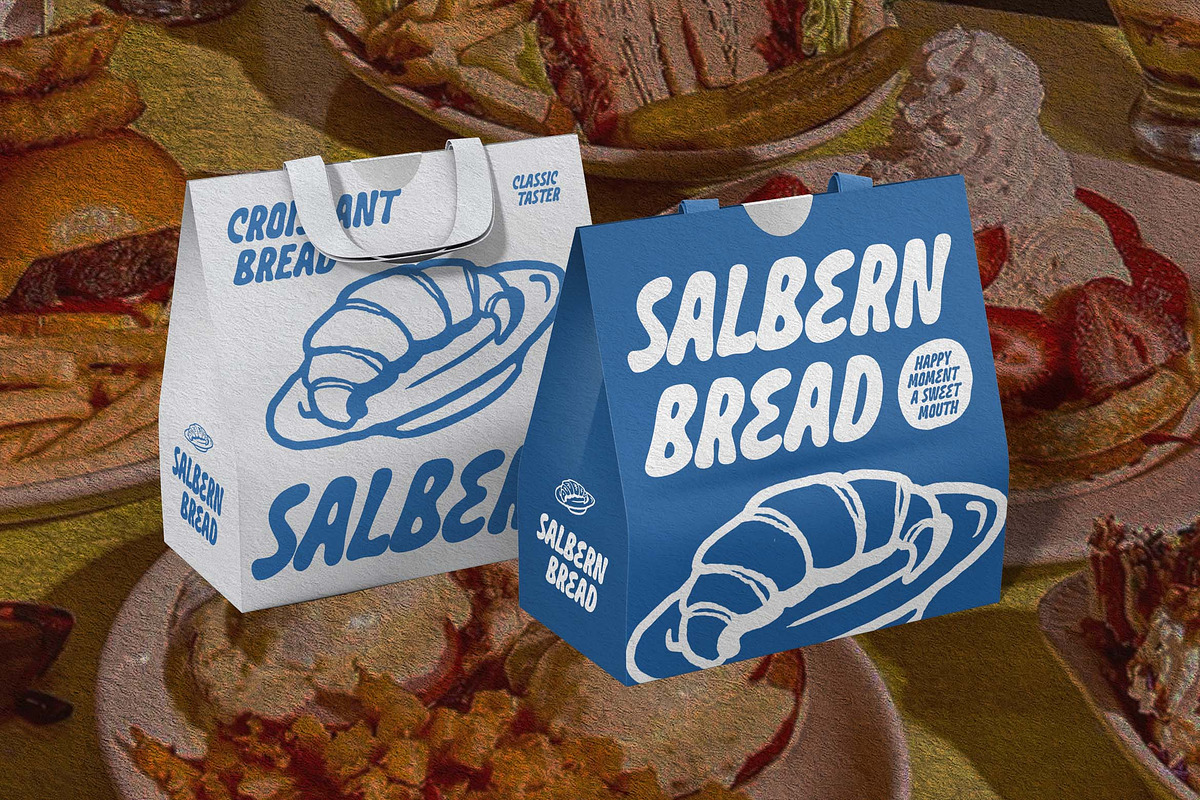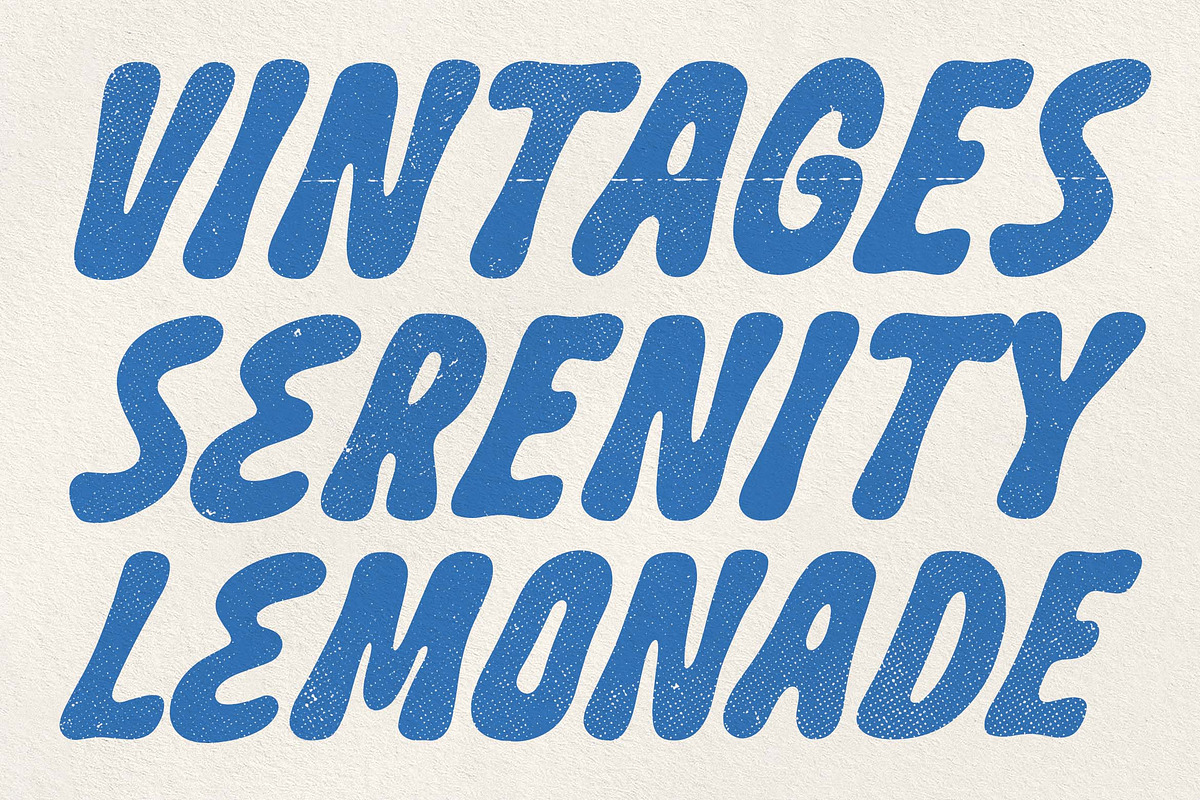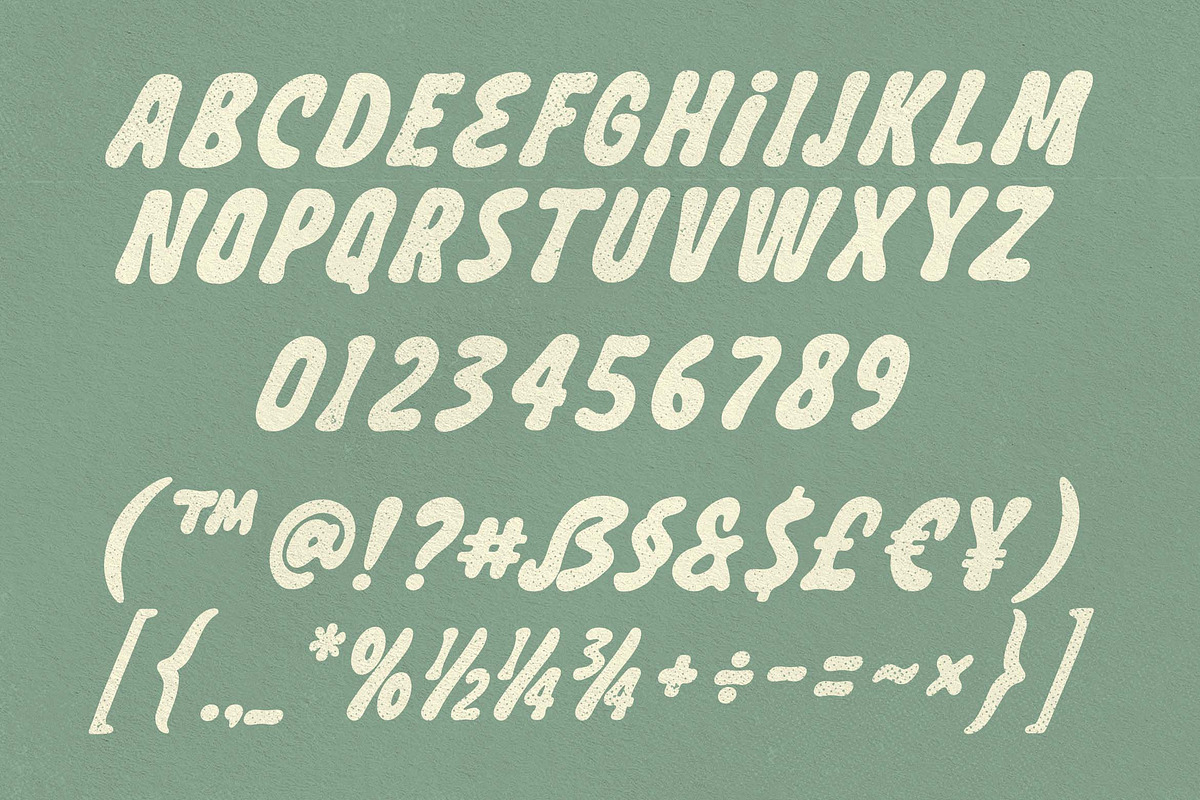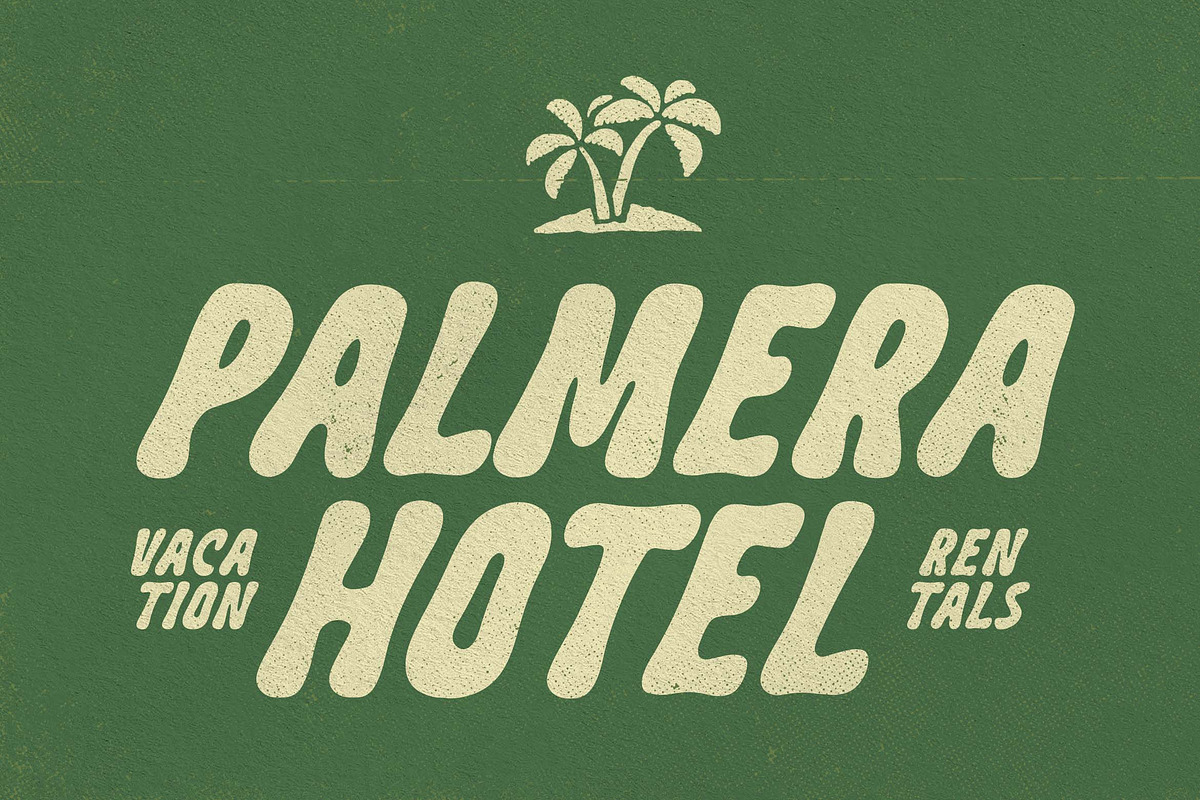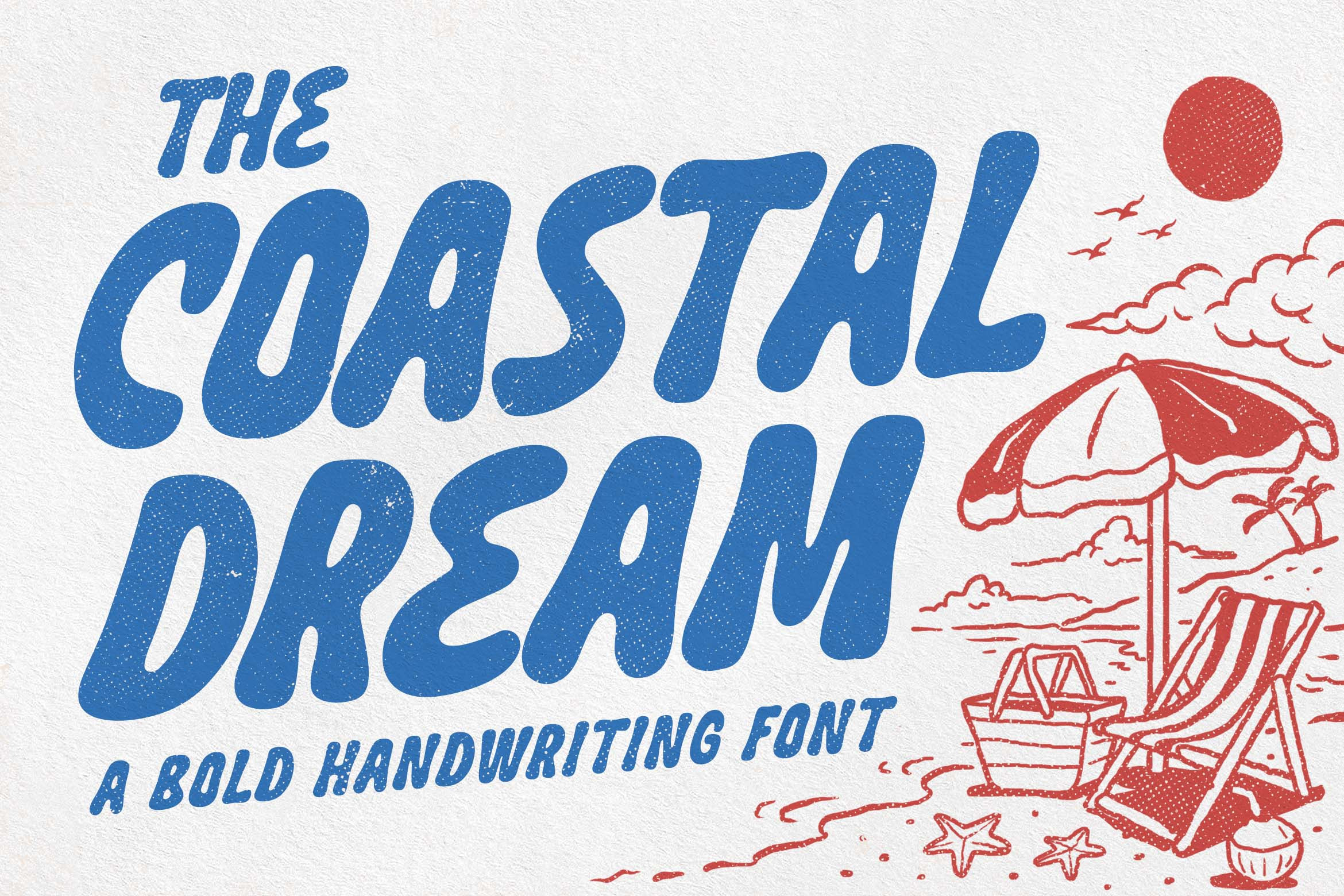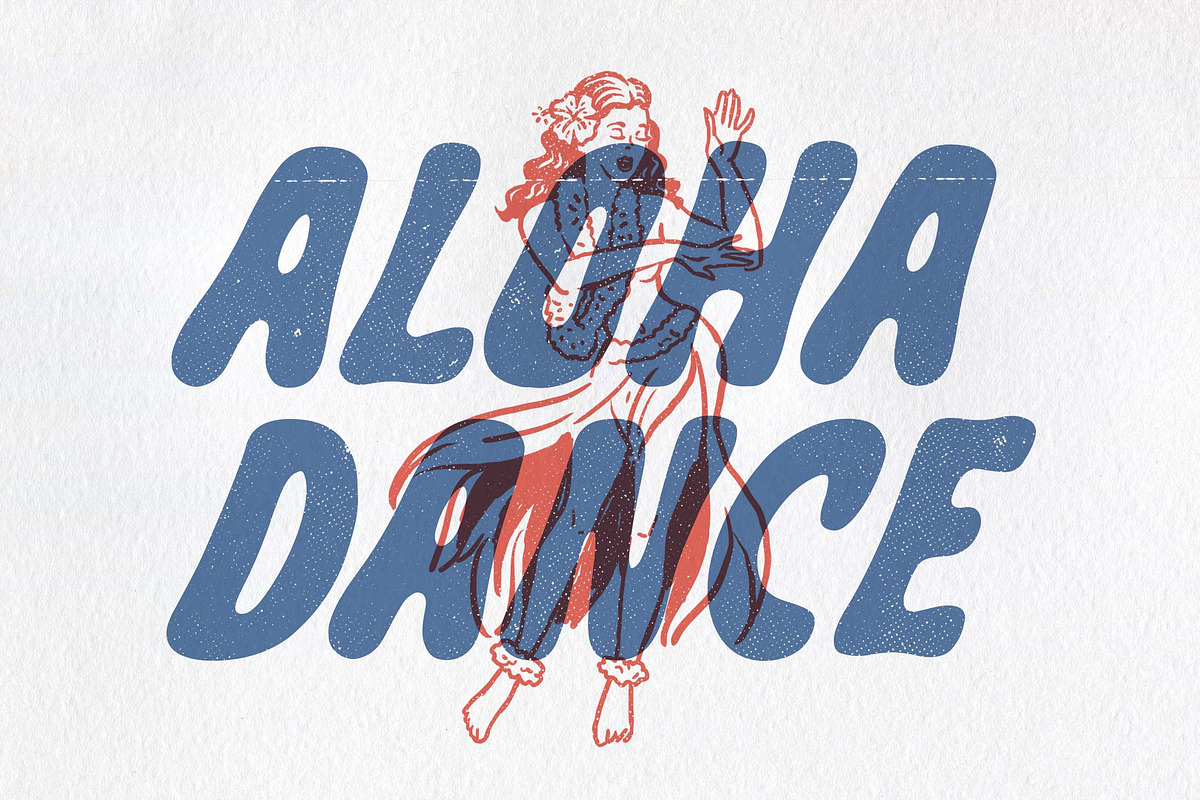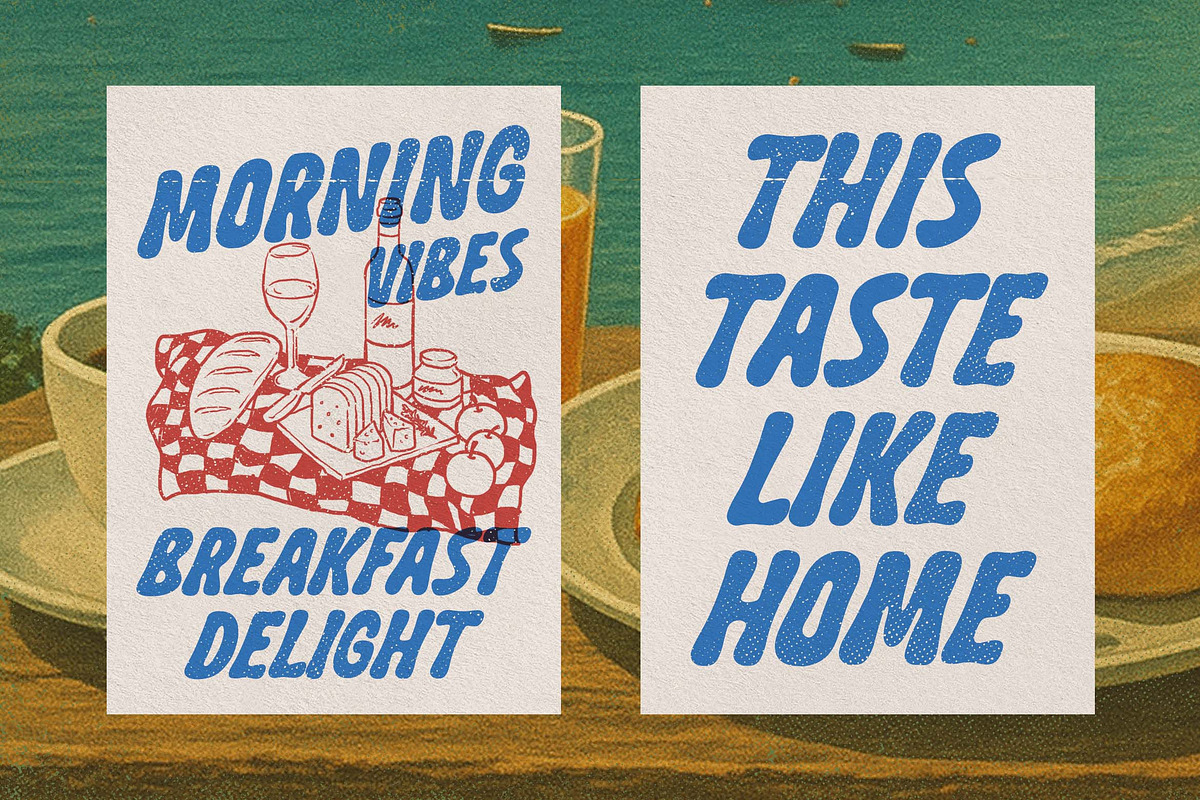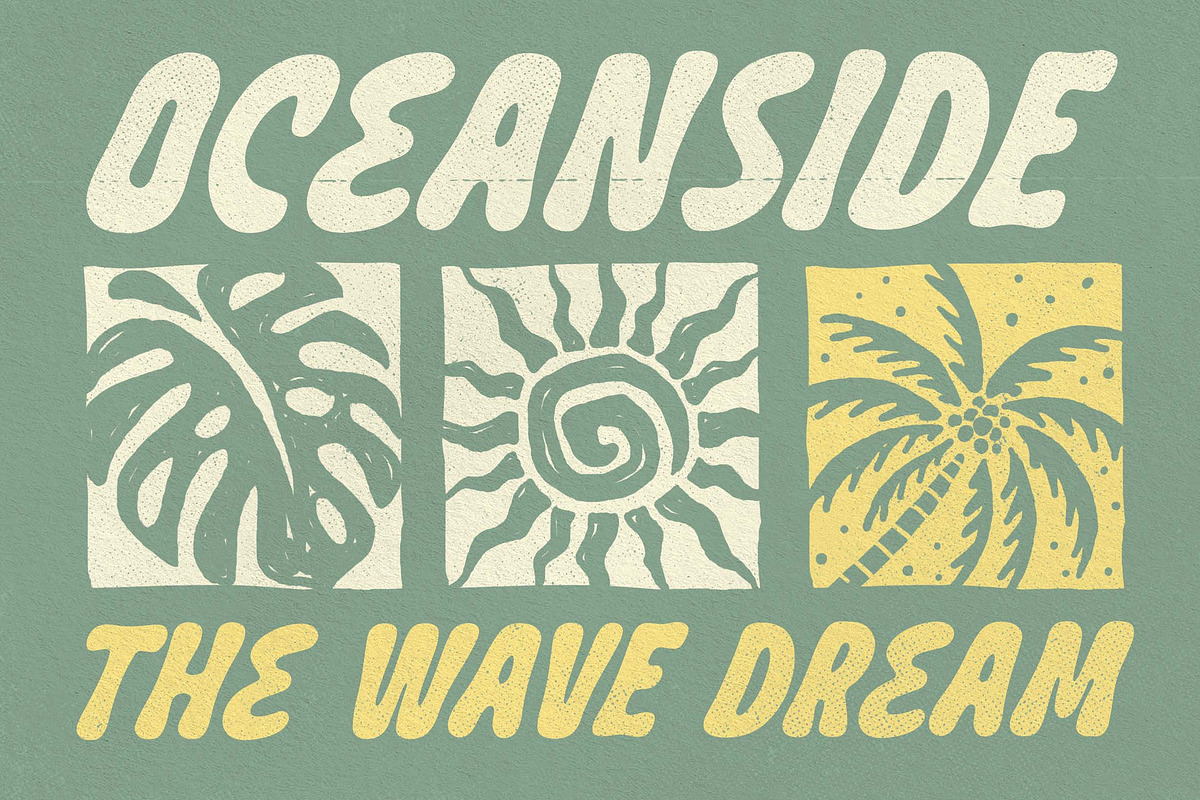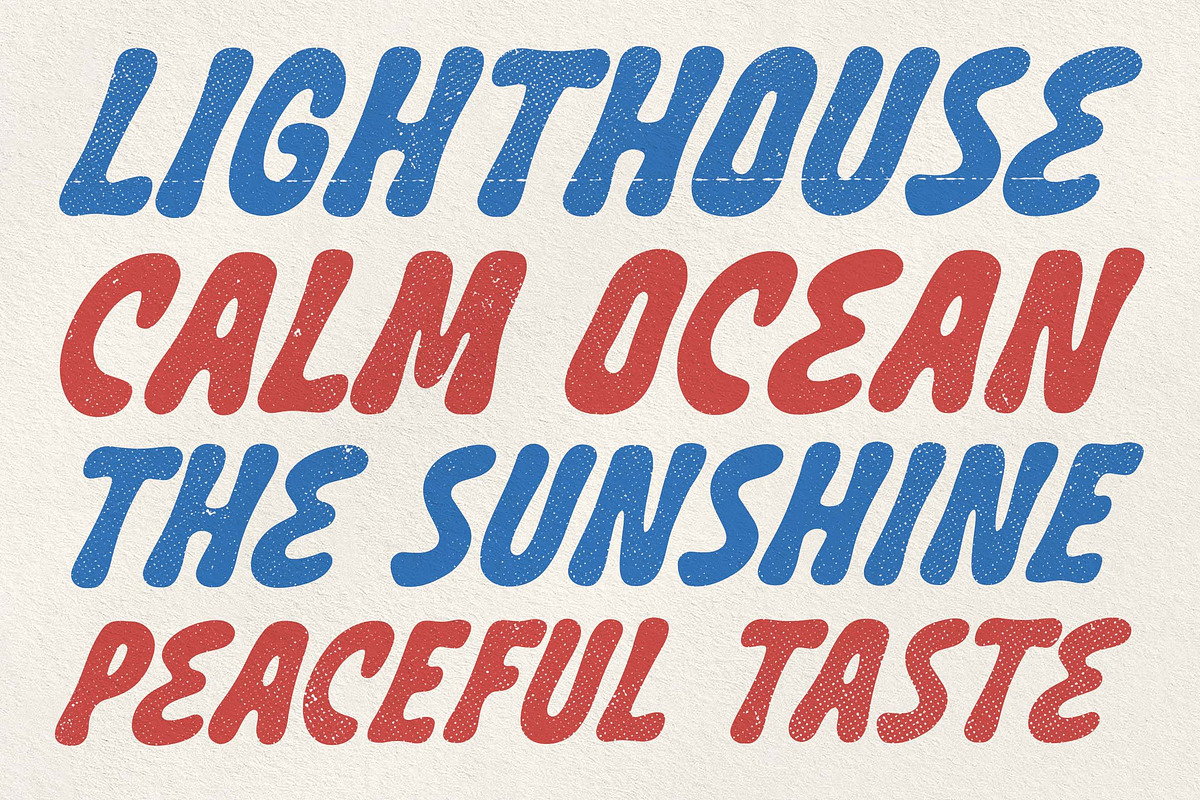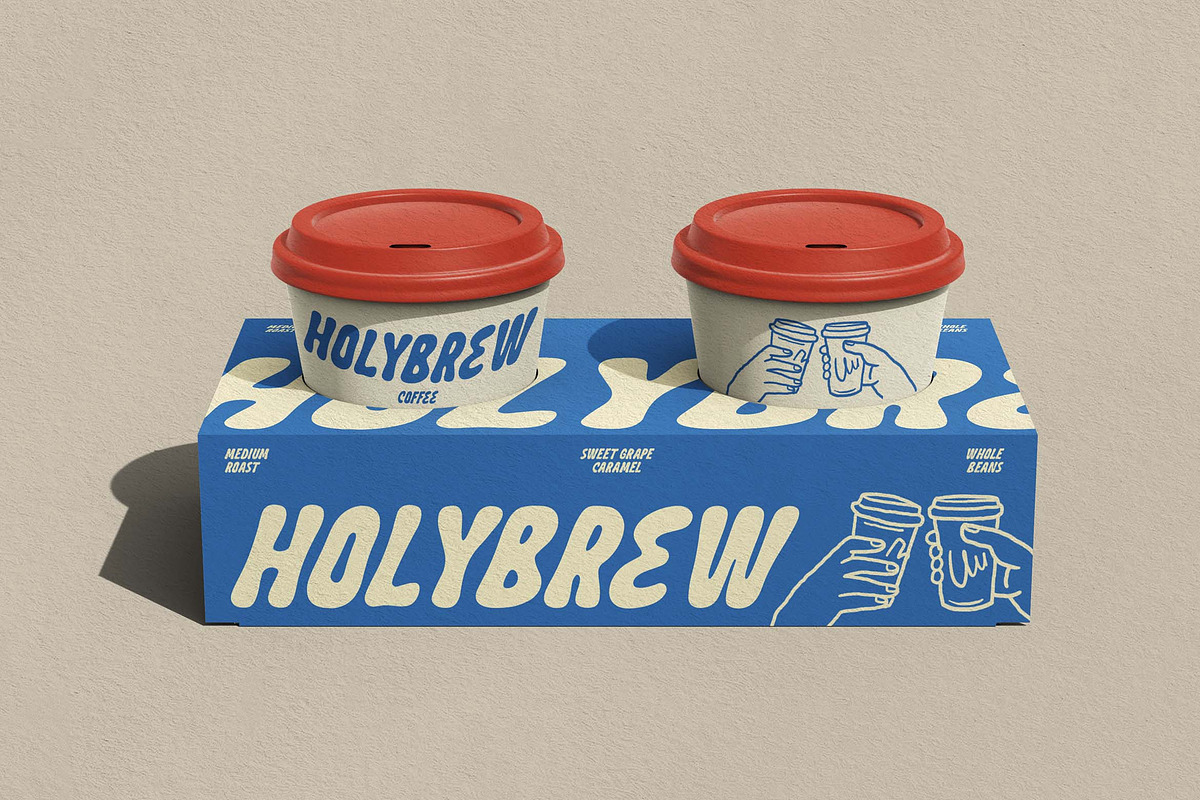
Coastal Dream a Bold Display Font
Bring the carefree spirit of summer to your designs with Coastal Dream, a bold display font inspired by retro beach postcards and seaside adventures.
This font blends playful curves and vintage texture, creating a warm, sun-kissed personality that’s perfect for branding, packaging, posters, travel ads, or anything that calls for a touch of nostalgia.
Let your words ride the ocean breeze with Coastal Dream font, every letter feels like summer.